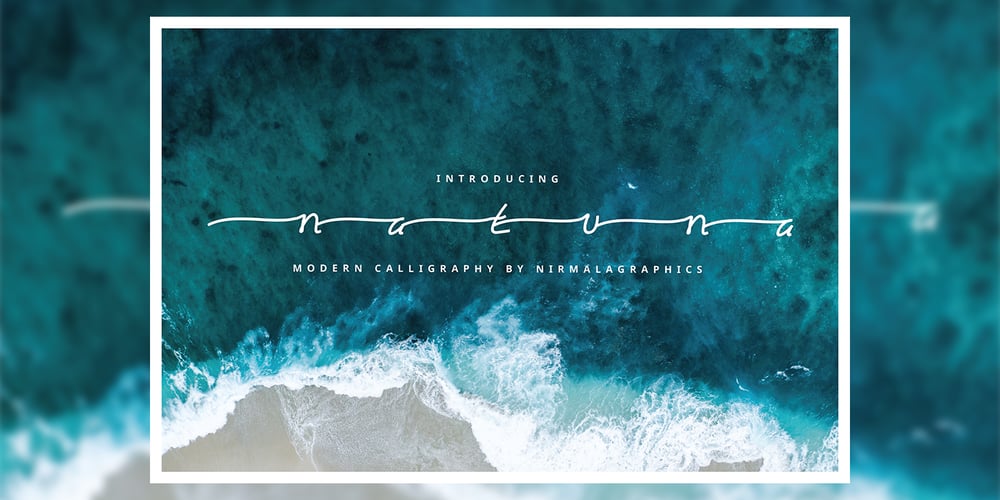
Natuna Font Family was designed by Andrea Zudip Aggasi and published by Nirmalagraphics. Natuna contains 2 styles and family package options. Natuna is named after the ocean which is rich in marine ecosystems and the region where I live in Indonesia.For this font, I retained my handwriting style, but I combine it with a touch of modern calligraphy. It is seen with the tail of each letter the same length. The upper and lower case letters all have the same tail.This font is perfect for many creative needs and can be for marriage invitations, greetings, business cards, and more.